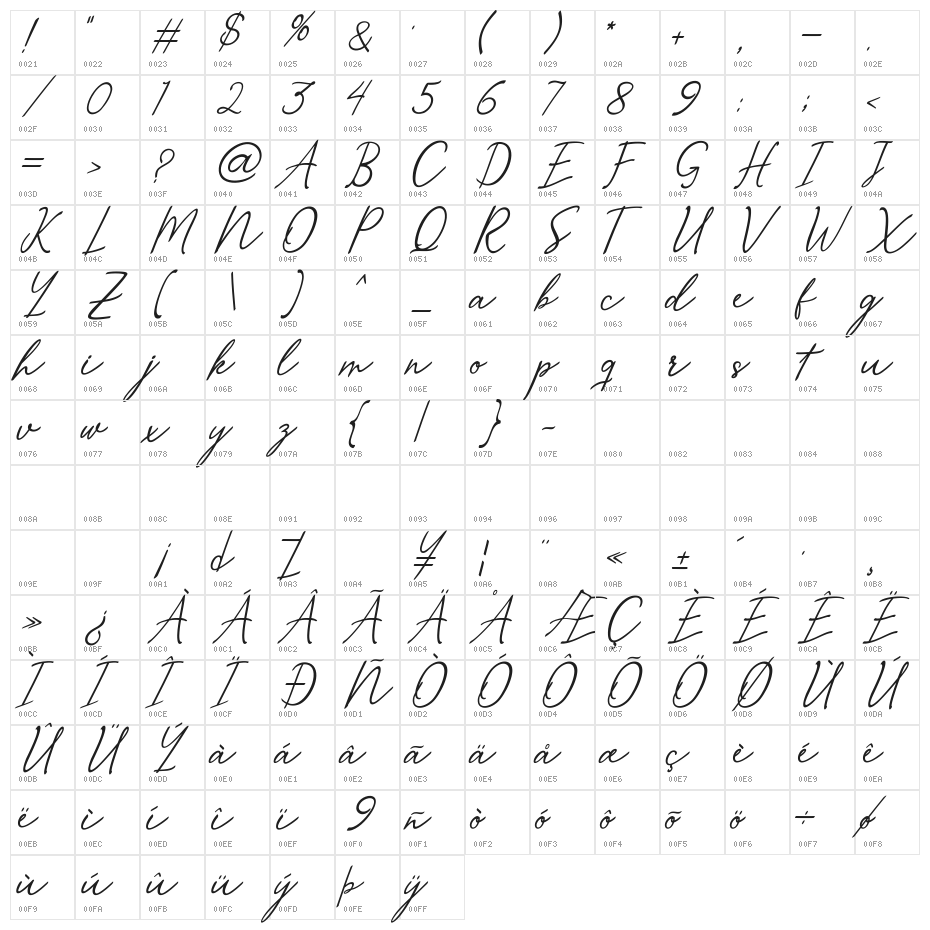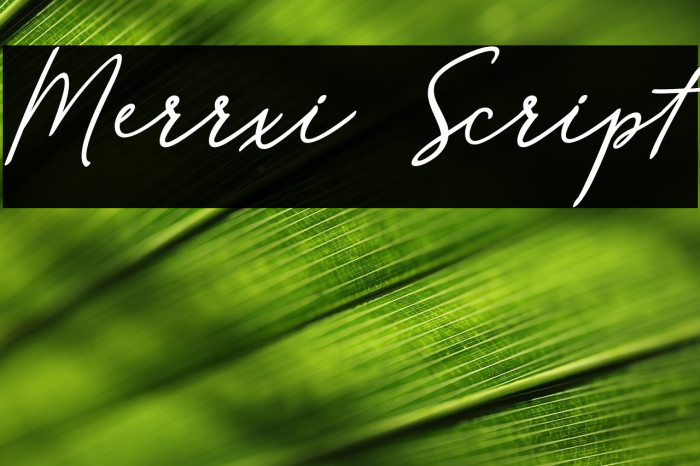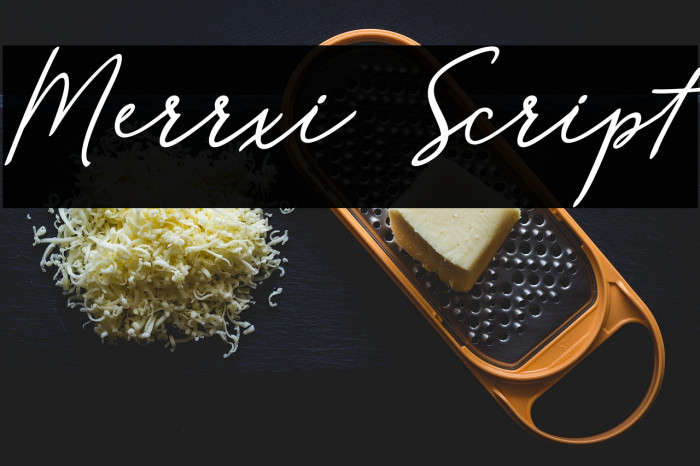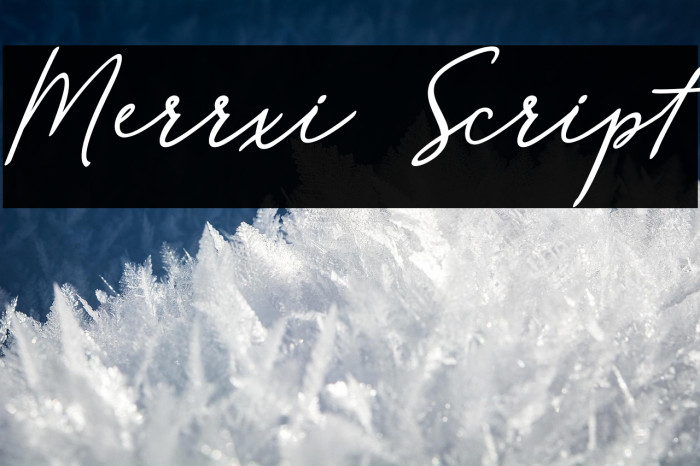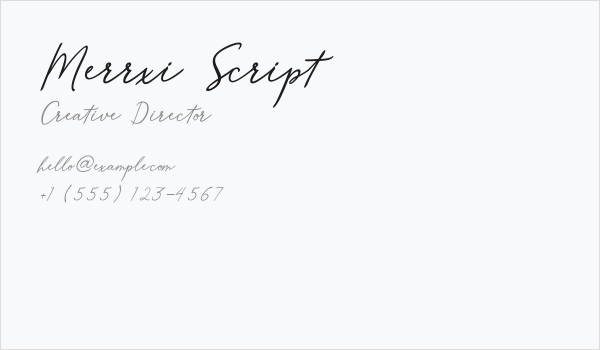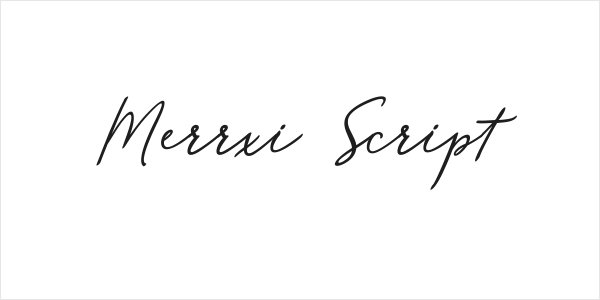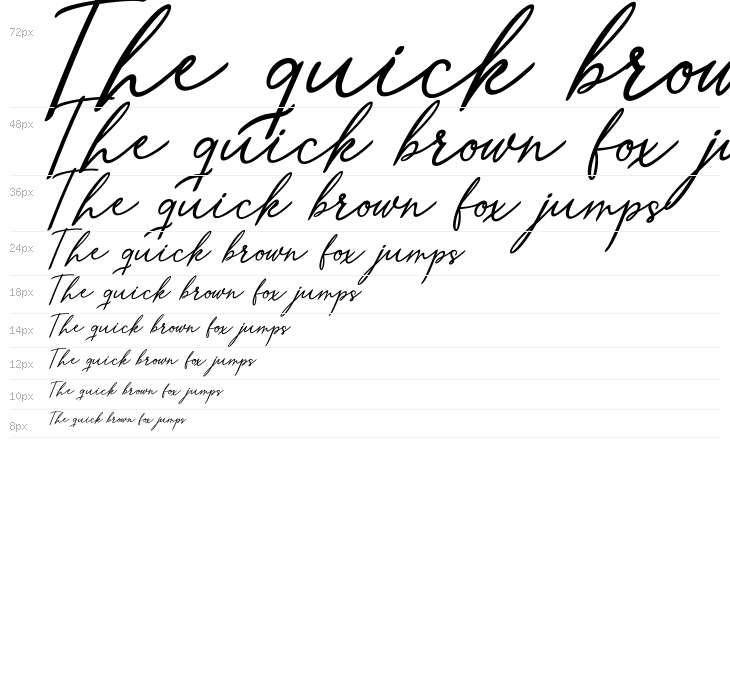
Merrxi Script Font
Merrxi Script Description
This elegant script font features a flowing, cursive style that mimics natural handwriting. The uppercase letters are gracefully elongated with smooth curves and subtle flourishes, while the lowercase letters maintain a consistent fluidity, enhancing readability. The numerals are designed with a similar cursive flair, adding a touch of sophistication. The special characters seamlessly integrate with the overall style, making it versatile for various design needs. The font's delicate strokes and balanced proportions create a harmonious and inviting appearance, perfect for projects that require a personal or artistic touch.
| Proposed Projects | Ideal for wedding invitations, greeting cards, branding, and elegant packaging designs. |